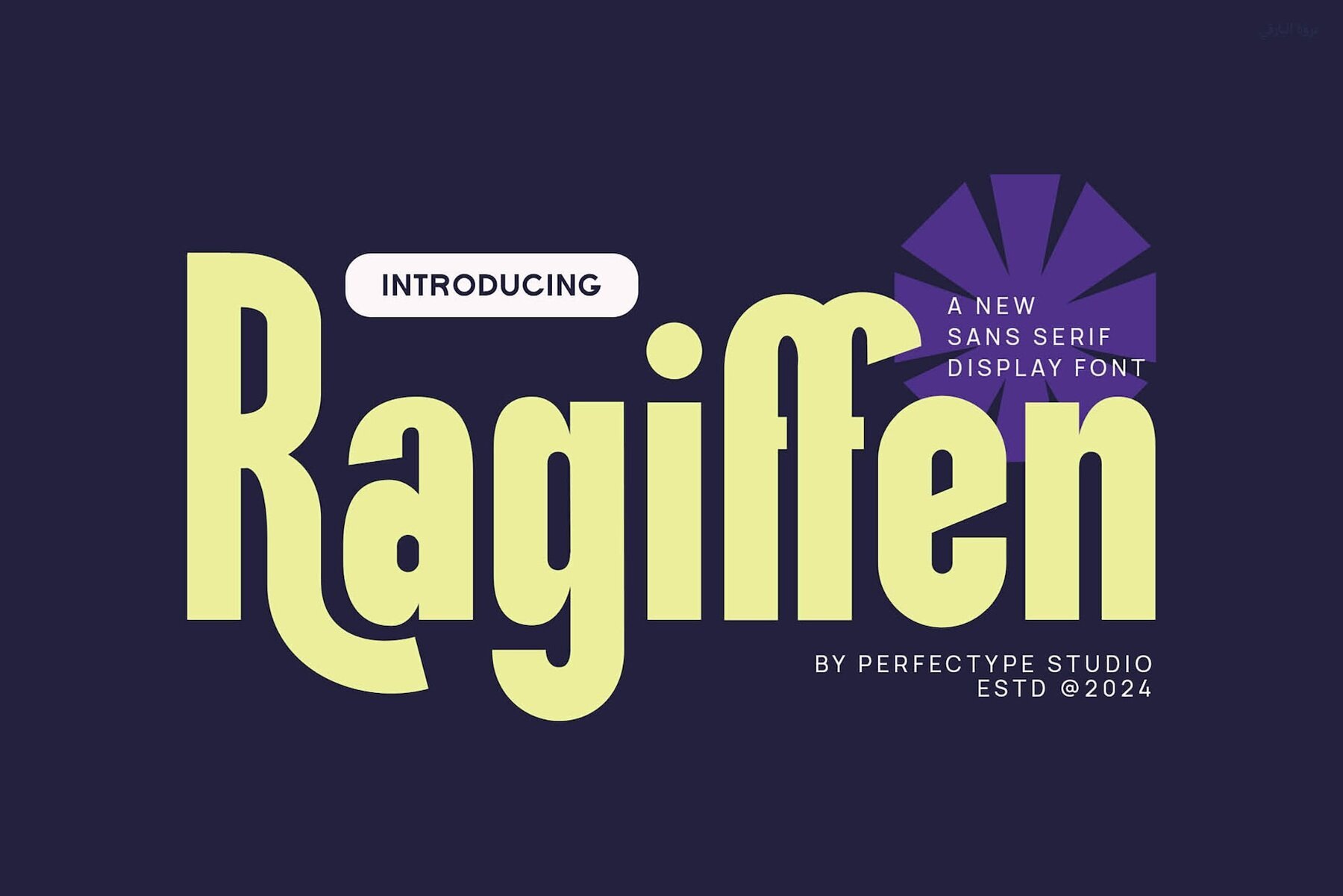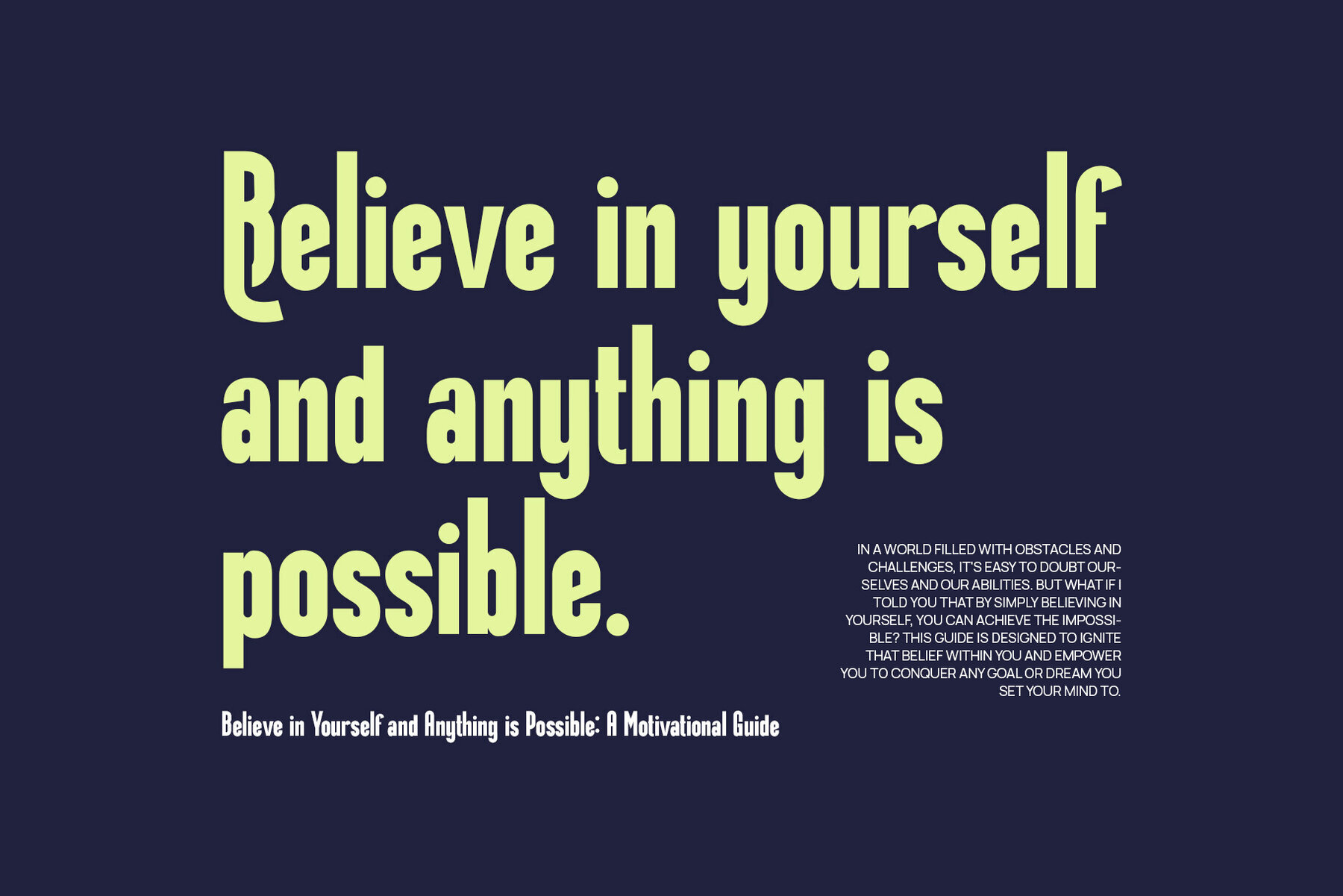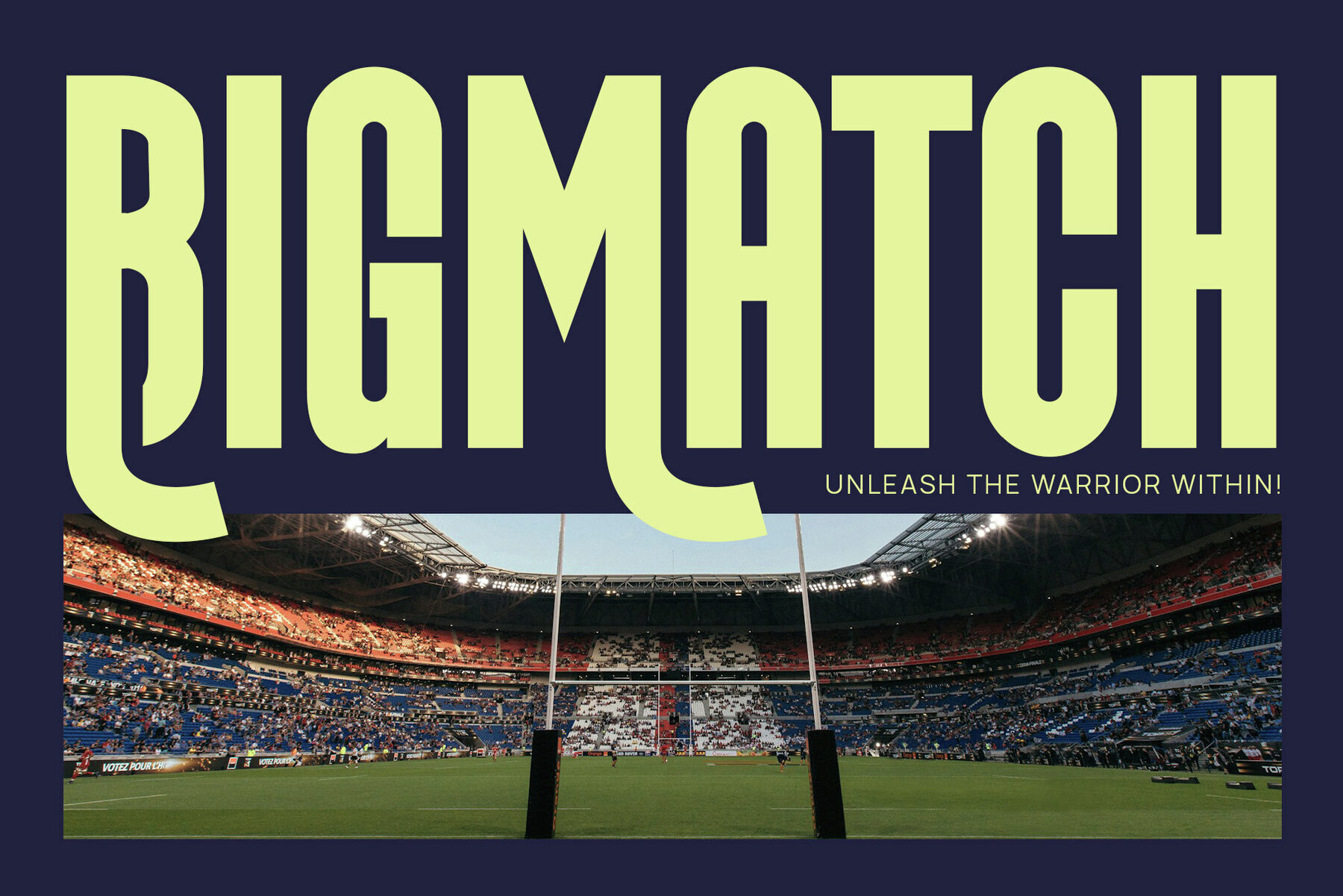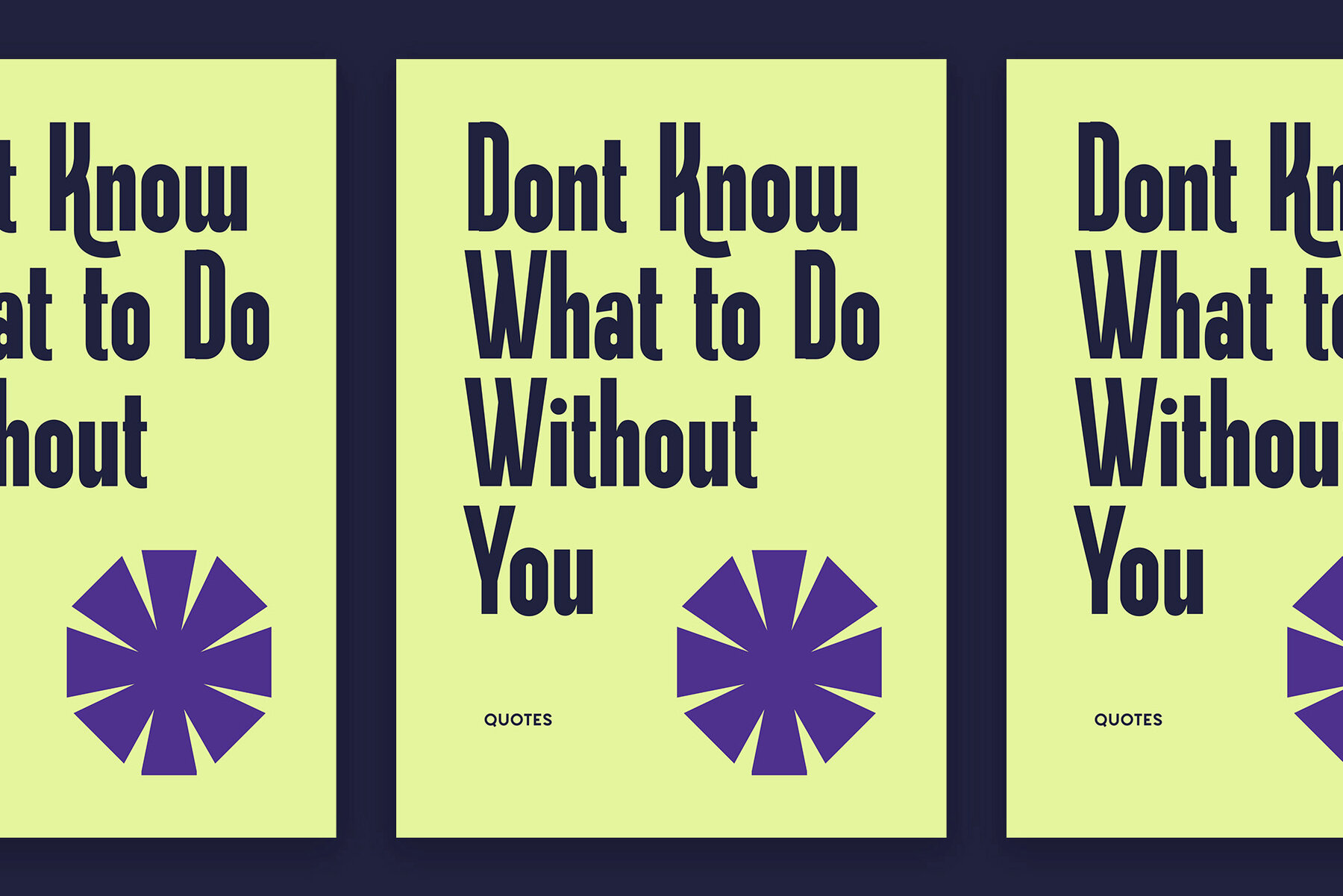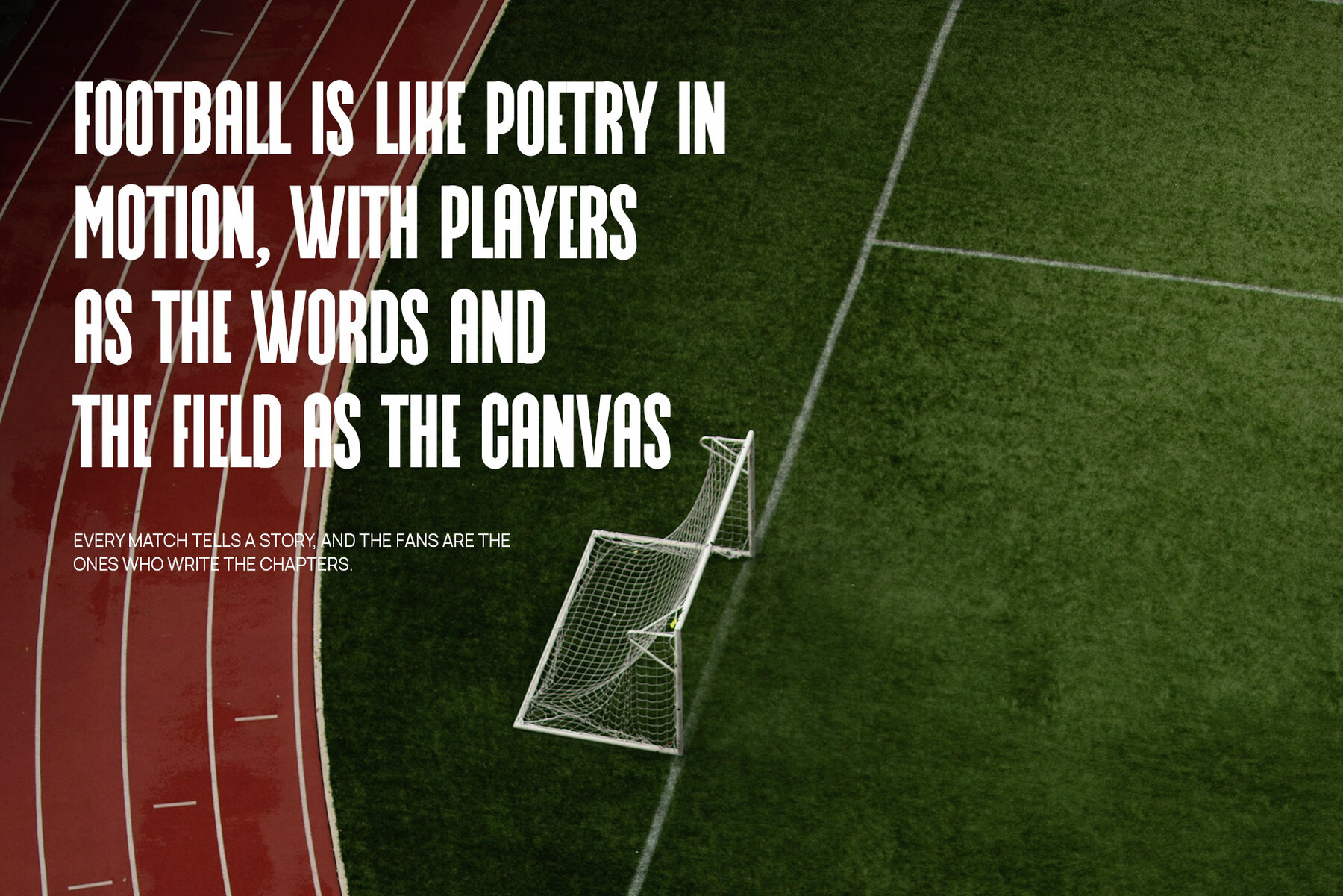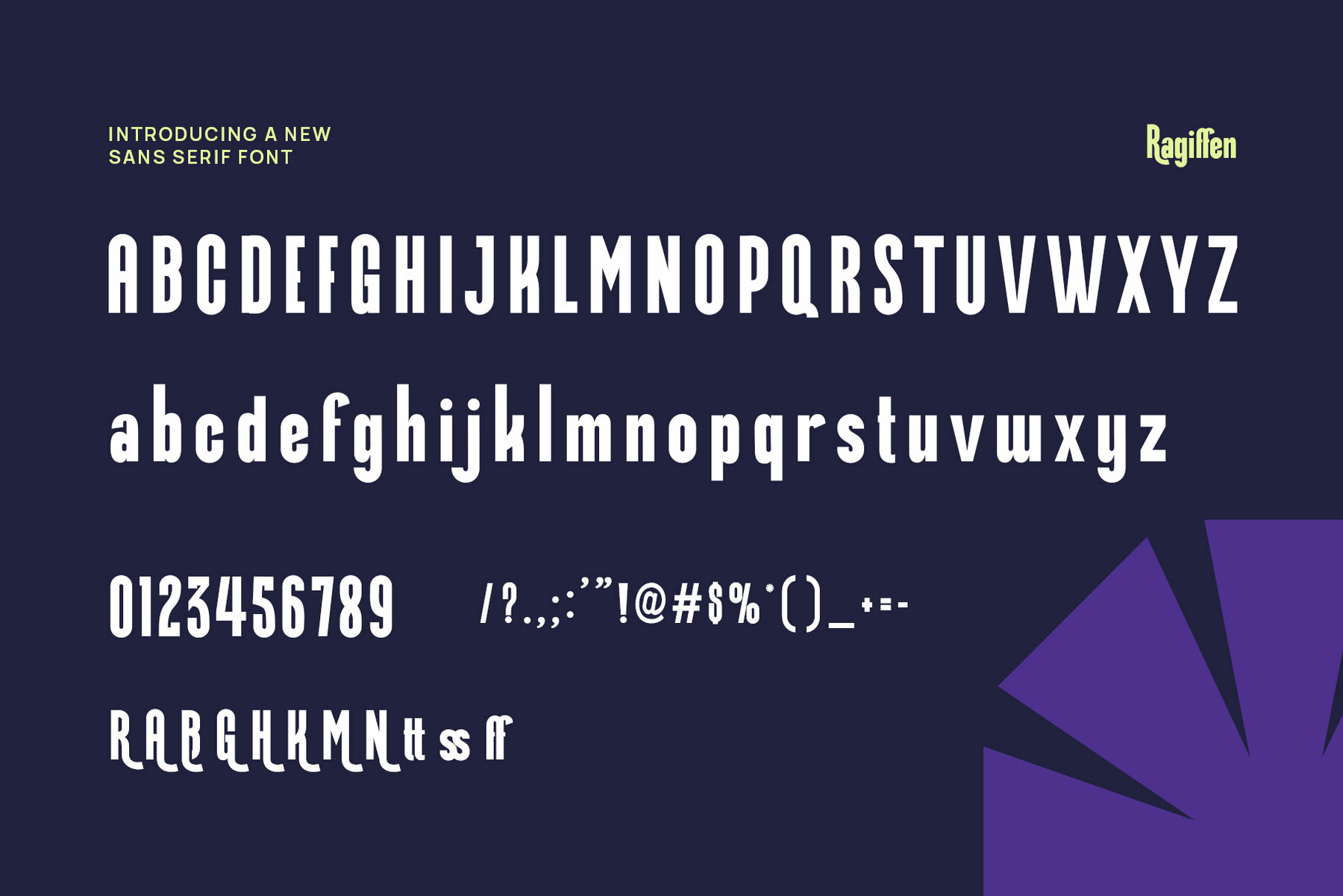
Ragiffen Font
Ragiffen
Ragiffen Ligature Sans Serif Font is a sleek and modern typeface designed to bring a professional look to any project. Featuring clean lines and sharp, geometric shapes, it excels in branding, corporate identities, and digital platforms. The font’s sophisticated set of ligatures enhances readability and adds artistic flair to your designs. Ragiffen is an ideal choice, whether you're creating logos, websites, posters, or magazine layouts, providing a polished feel to all creative ventures.
The versatility of Ragiffen shines in both large headings and body text, maintaining clarity and visual harmony. Its ligatures enable seamless letter connections, offering a fluid, cohesive look ideal for high-end branding and premium product marketing. With a focus on minimalism, Ragiffen stands out without being overwhelming, suitable for diverse industries such as tech, finance, lifestyle, and entertainment.
Embrace Ragiffen Ligature Sans Serif Font to effectively communicate your message with elegance and functionality. Its modern appeal and adaptability across mediums make it an essential tool for designers aiming to leave a lasting impression in today's competitive visual landscape.